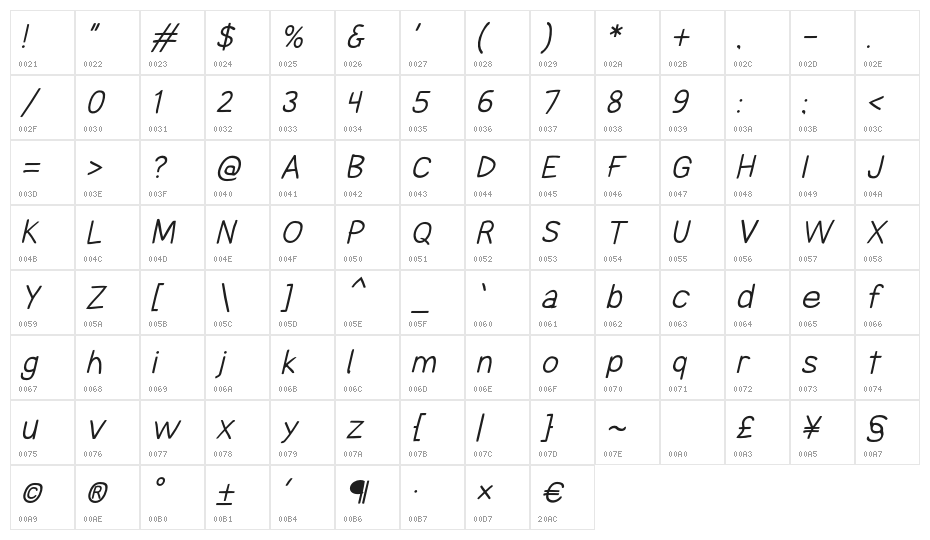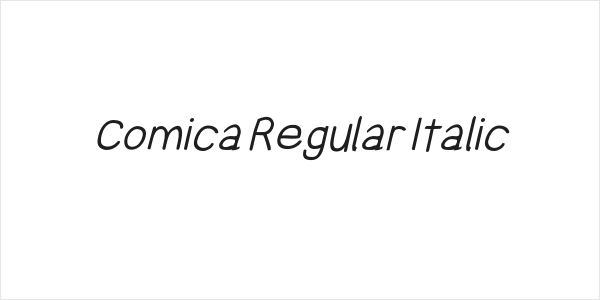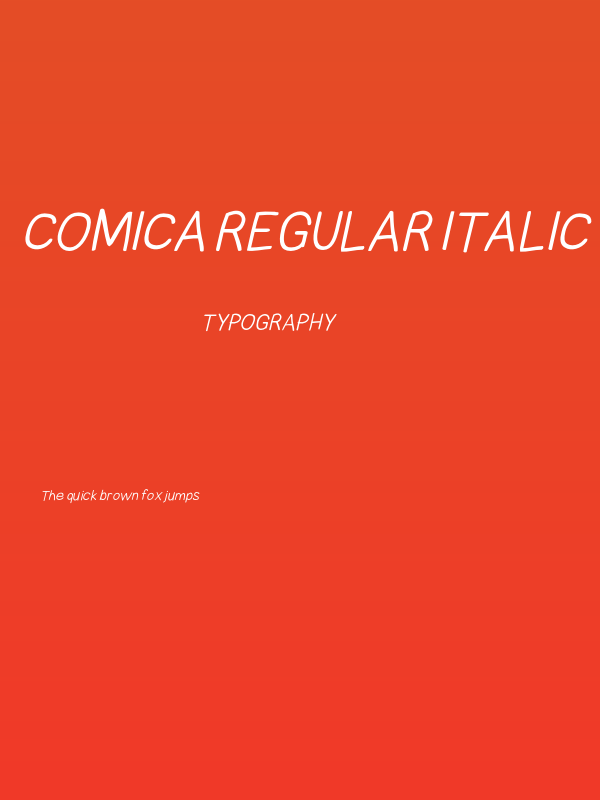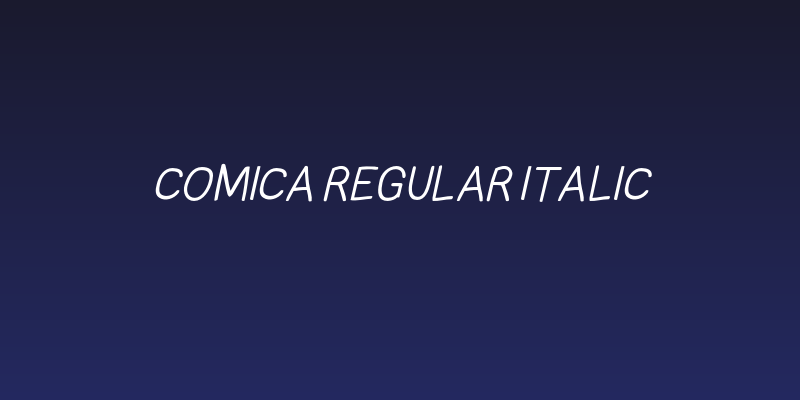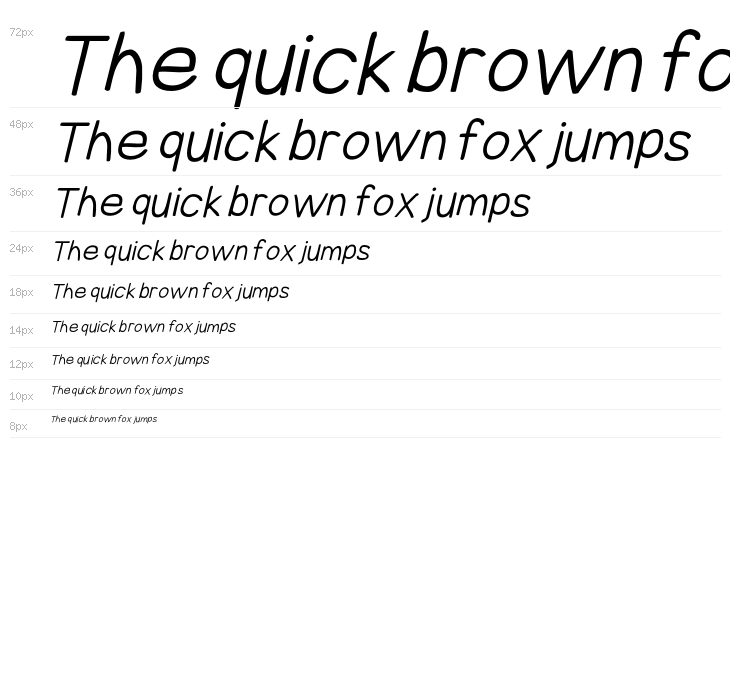
Comica Regular Italic Font
Comica Regular Italic Description
This font features a playful and casual style with a handwritten feel. The characters are slightly slanted, giving it an italic appearance, which adds to its dynamic and lively nature. The strokes are smooth and rounded, providing a friendly and approachable look. The font maintains consistent stroke width, offering a clean and uniform appearance. Its informal style makes it suitable for creative and fun projects, where a relaxed and engaging tone is desired. The spacing between characters is balanced, ensuring readability while maintaining its unique character.
| Proposed Projects | Ideal for comic books, children's books, casual branding, and playful graphic designs. |